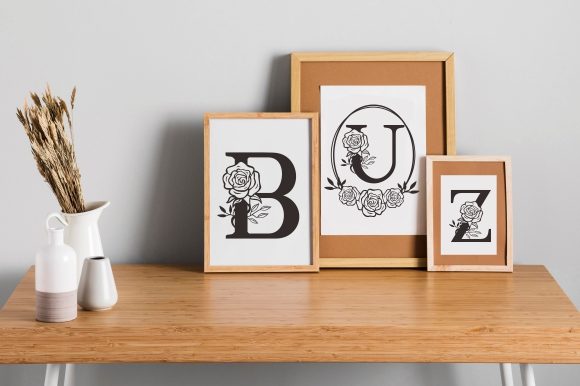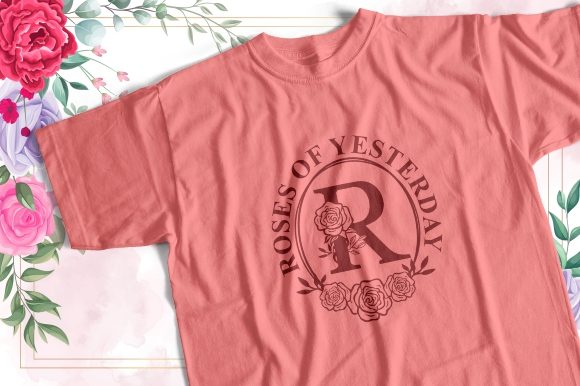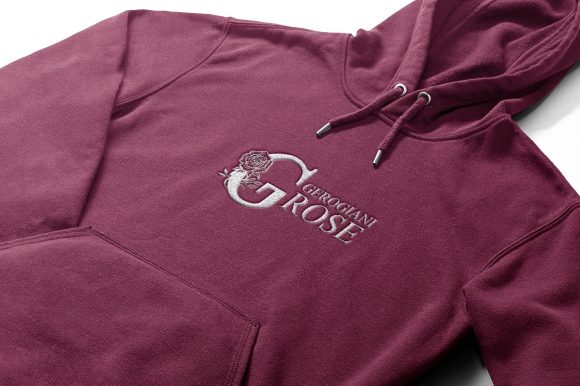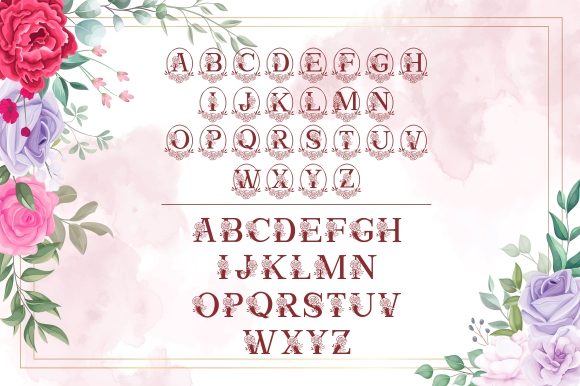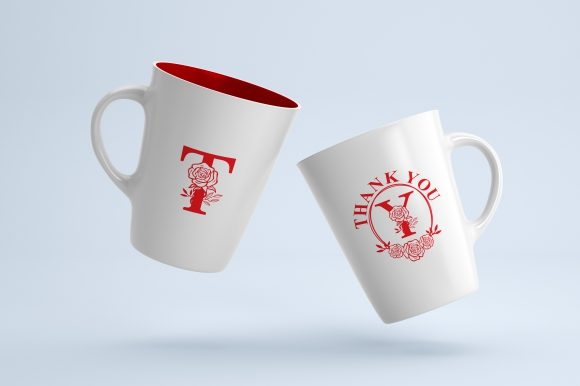
Introduction to Monogram and Rose Font
Have you ever stumbled upon a font that makes you feel like you’ve discovered a hidden treasure? For designers, it’s like finding the perfect brushstroke in a painting – it elevates the entire piece. For me, that moment came when I laid eyes on the Monogram and Rose Font. Its intricate details and delicate rose ornaments transported me to a whimsical world of romance and elegance.
As a valuable design resource, the Monogram and Rose Font is perfect for creating high-quality projects that exude sophistication. Whether you’re crafting a beautiful wedding invitation, designing stunning social media posts, or creating eye-catching greeting cards, this font is sure to make your work stand out. And the best part? It’s available for free download, making it an accessible addition to any designer’s toolkit.
Key Features of Monogram and Rose Font
- High-quality design with intricate details and elegant touch, perfect for creative projects.
- Comes with a transparent background, allowing for easy integration into various design elements.
- Unique characteristics include a beautiful monogram design and a delicate rose motif, adding a touch of sophistication to any creative project.
- Perfect for use in wedding invitations, stationery, and other special occasion designs where elegance and refinement are required.
Honest Review: Monogram and Rose Font
I recently came across the Monogram and Rose Font, and I must say it’s been a game-changer for my creative projects. The high-quality design is perfect for adding a touch of elegance to any layout.
The font is available for free download, making it an amazing resource for designers on a budget. What I love about this font is its versatility – it can be used for a wide range of creative projects, from wedding invitations to luxury brand logos.
Some of the key features that work well for me include:
- ✨ High-quality design that’s perfect for printing or digital use
- ✨ Transparent background, making it easy to layer over images or other designs
- ✨ Elegant and sophisticated feel that’s perfect for luxury brands or special occasions
However, I do have to mention a few limitations:
- ⚠️ Limited font styles and weights – if you’re looking for a more extensive font family, you may be disappointed
- ⚠️ Some users may find the font too ornate or over-the-top for certain designs
Overall, I’m really impressed with the Monogram and Rose Font. While it may not be perfect, its high quality and versatility make it a valuable addition to any designer’s toolkit. I’d definitely recommend it for any creative project that requires a touch of elegance and sophistication.
Common Use Cases for Monogram and Rose Font
The Monogram and Rose Font is perfect for a variety of creative projects, including wedding invitations, baby showers, and social media graphics. Its elegant design and high-quality aesthetic make it a great choice for any project that requires a touch of sophistication.